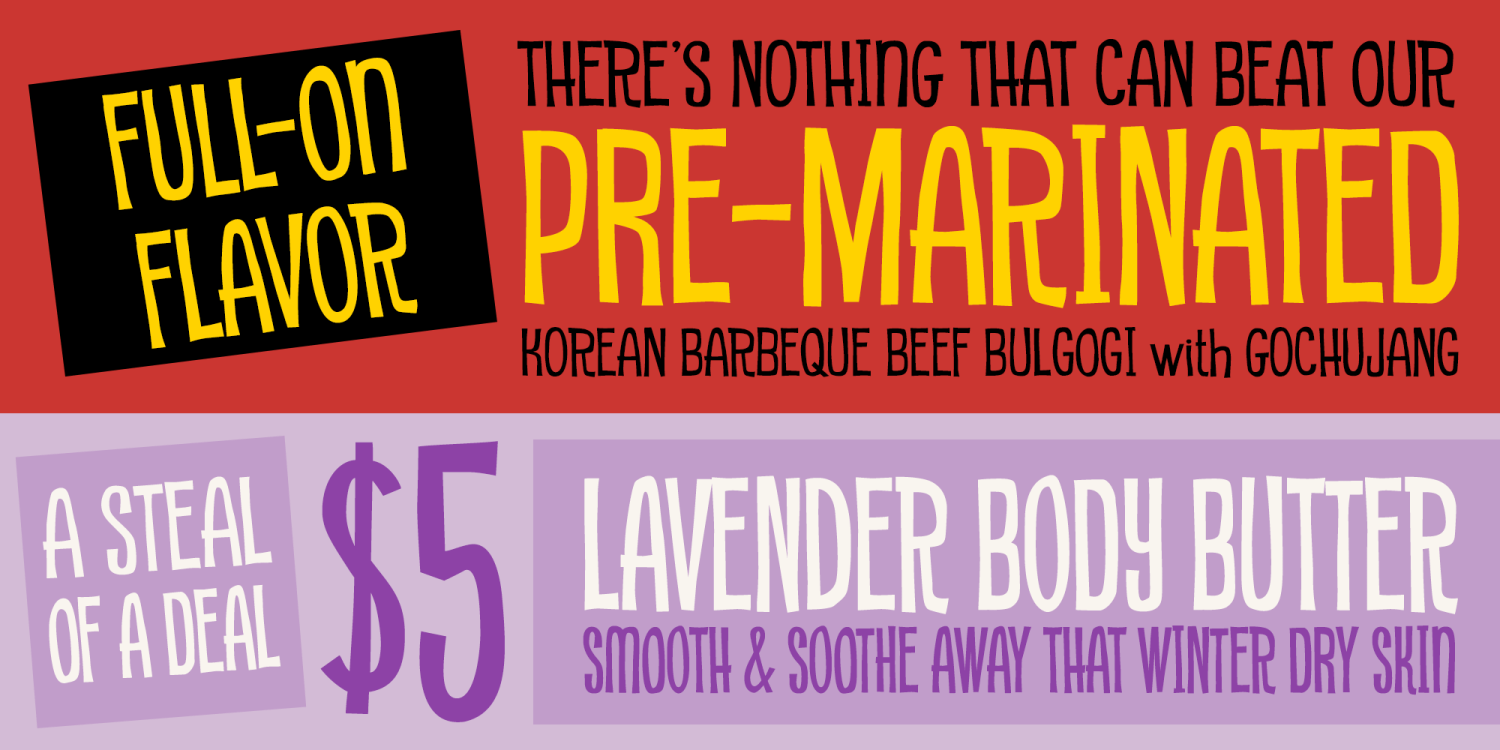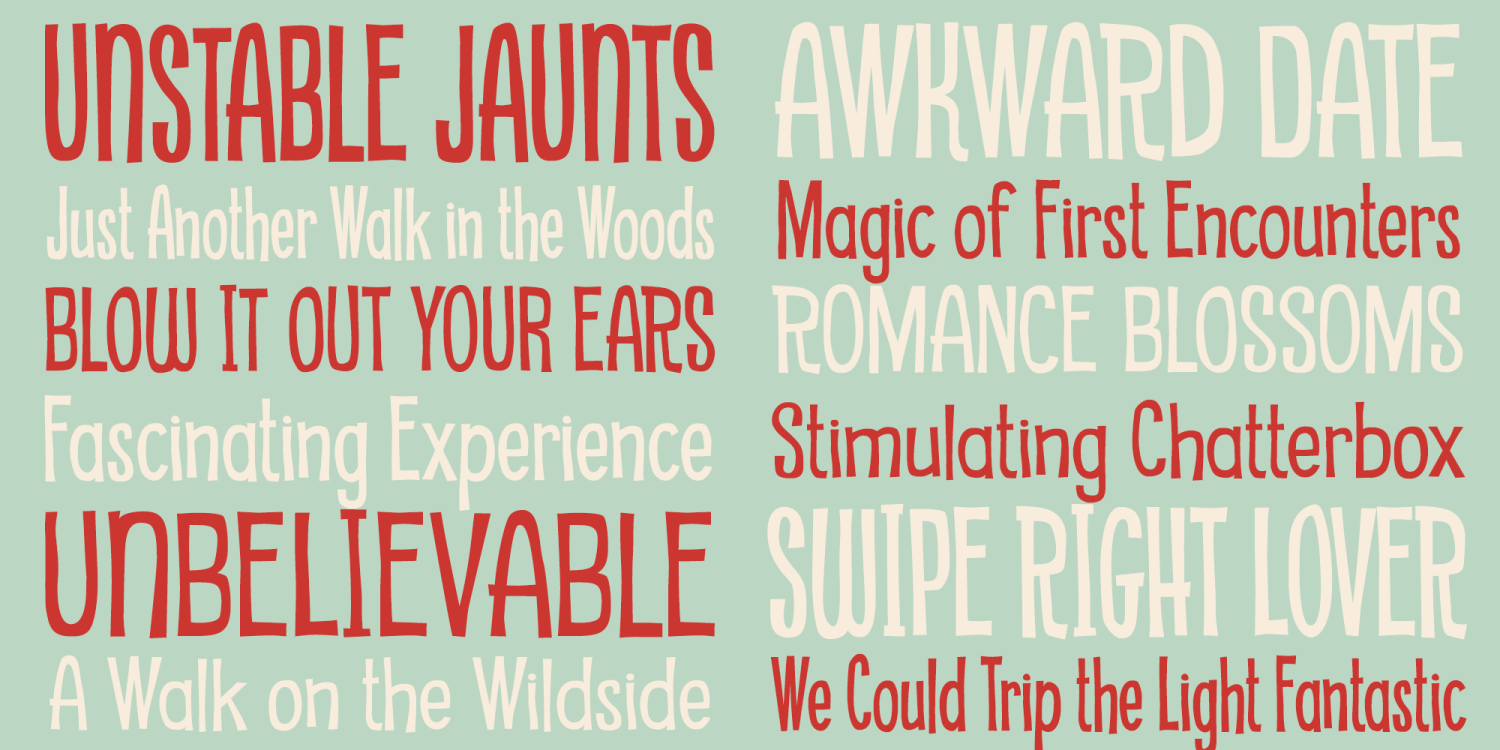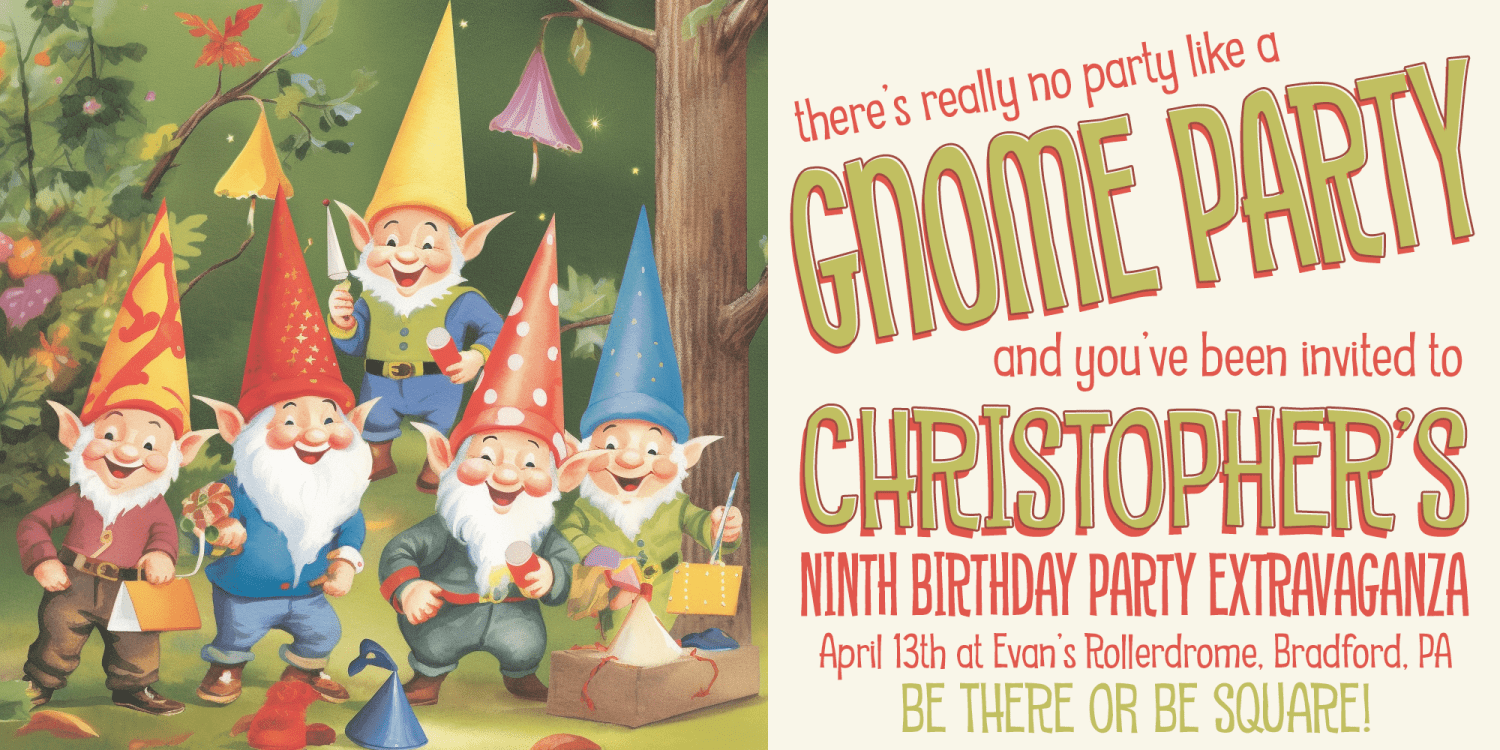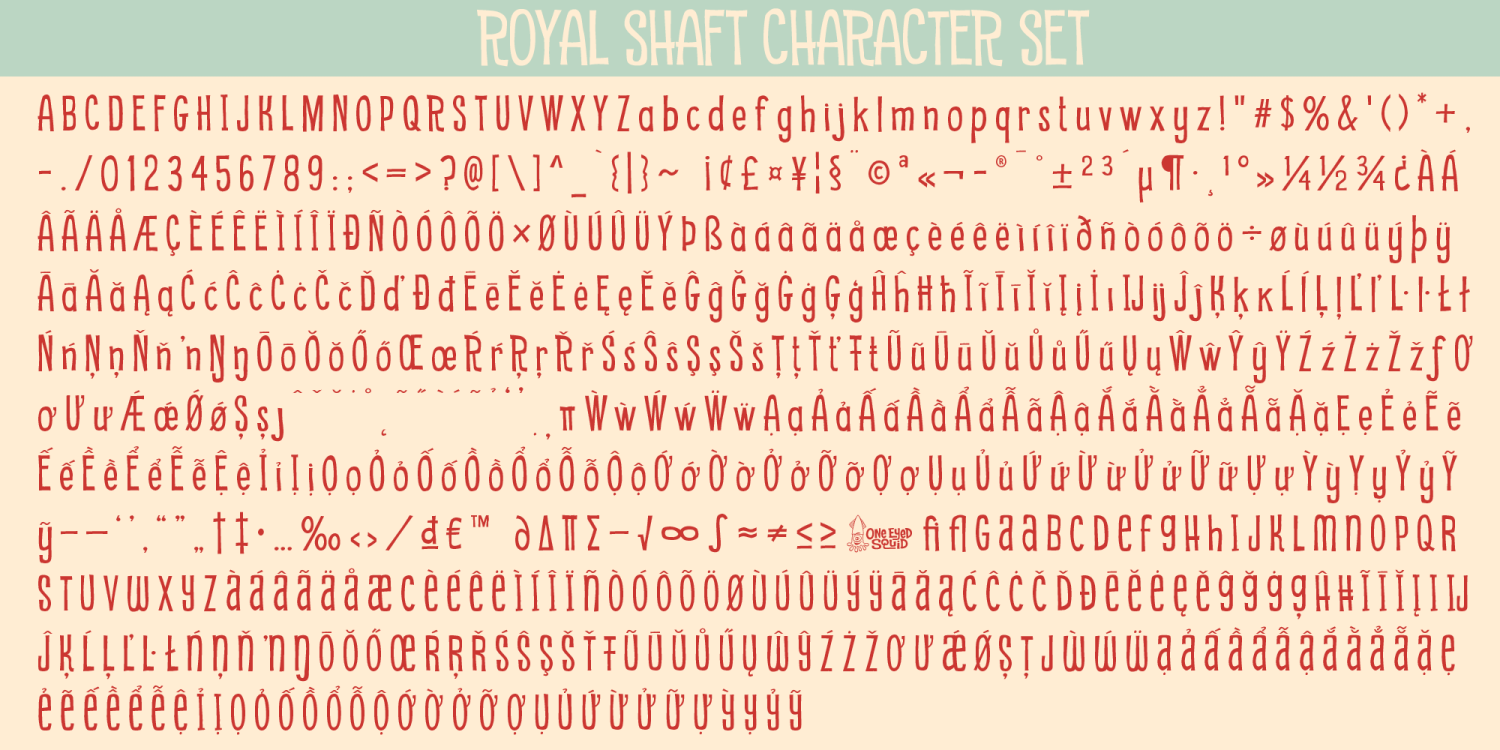
About Royal Shaft
A font family that doesn't dance, but gracefully stumbles along with its clumsy vibe. Royal Shaft come in three widths: Condensed, Regular, and Wide for your typesetting pleasure. Family pricing is set at 3 for the price of 2! (Royal Shaft contains…